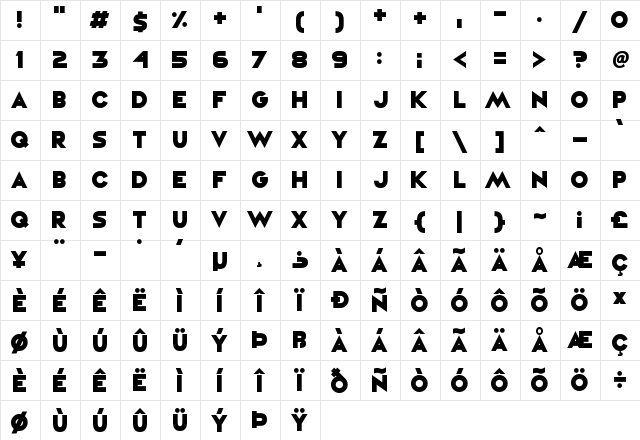
Vampire Raves Regular Font Preview
Vampire Raves Regular
Design Context for Vampire Raves Typeface
Vampire Raves takes a measured approach to typography — its balanced proportions and neutral character make it a reliable workhorse for both digital and print work.